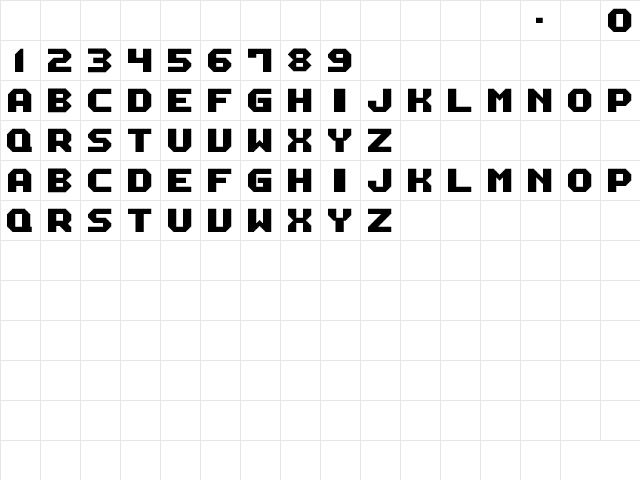
M12_MACH BIKER Regular
Design Context for M12_MACH BIKER Typeface
M12_MACH BIKER takes a measured approach to typography — its balanced proportions and neutral character make it a reliable workhorse for both digital and print work.